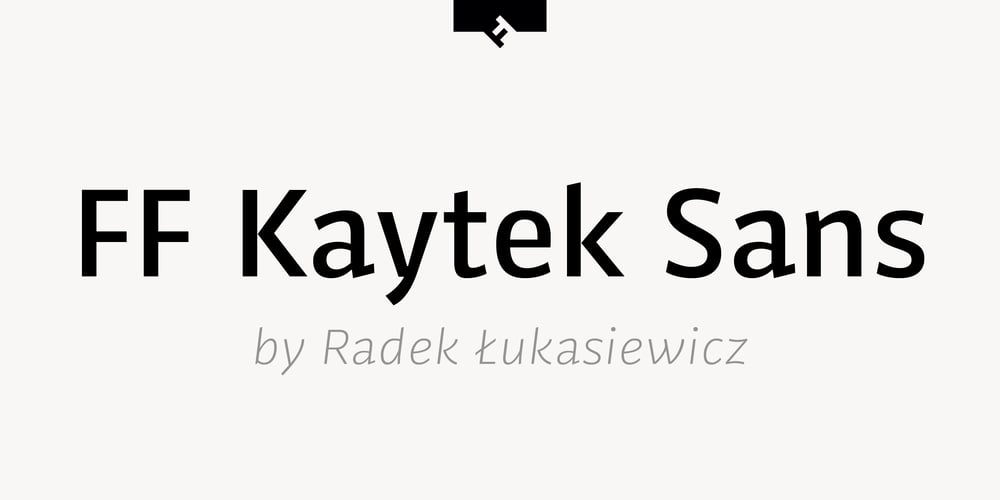
FF Kaytek Sans Font Family was designed by Radek Łukasiewicz and published by FontFont. FF Kaytek Sans contains 12 styles and family package options. Kaytek™ Sans is a fresh take on the correspondence typefaces of the 90s – which were originally designed for the demands of office environments. Just like its predecessors, this text typeface is robust and hard-working – meaning it works well in challenging design or printing environments – but it’s not without personality. Look closer at the lowercase g and a, especially in the italic, and you can see some unexpected elements of subversiveness within the design. This blend of sturdiness and quirkiness means it’s just as relevant for information-heavy projects, such as annual reports, as it is in more expressive environments. Although first and foremost designed for text, Kaytek Sans’ details shine through in its heavier weights and larger sizes, meaning it also has display potential. Every style of the typeface takes up exactly the same amount of space, thanks to the way Radek Łukasiewicz created the design. He based the entire typeface on a single, master set of proportions. This means designers can switch between styles without the text being reflowed, making it particularly useful in magazines, where space might be limited, and also on the internet, where hover links appear in a different style. As well as its roots in the office, Kaytek Sans draws on a little bit more 90s nostalgia. It’s named for the first and only Polish walkman, and embodies the same solid, no-nonsense shapes that made the analogue technology of the era so charming. Just like these early personal music devices, Kaytek Sans is practical, but not clinical, able to work hard while still exuding warmth and personality. It pairs effortlessly with Kaytek Slab, which is a sturdier and more expressive take on the design. Kaytek Sans comes in 12 weights, from Thin to Black Italic, and offers multi-language support. Kaytek Slab, Kaytek Headline and Kaytek Rounded are also available.